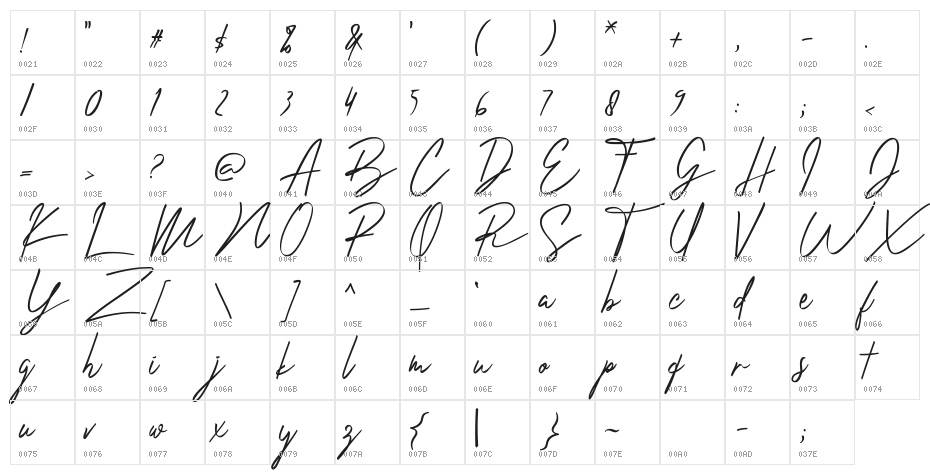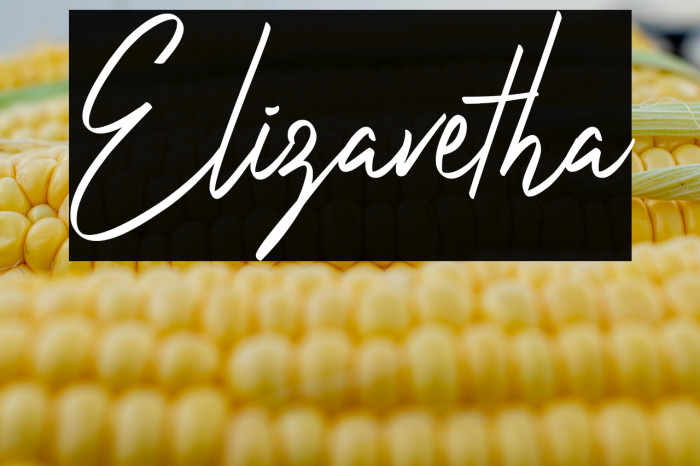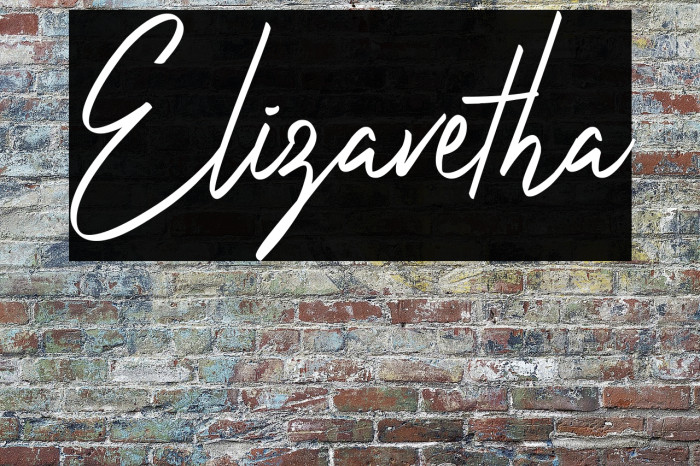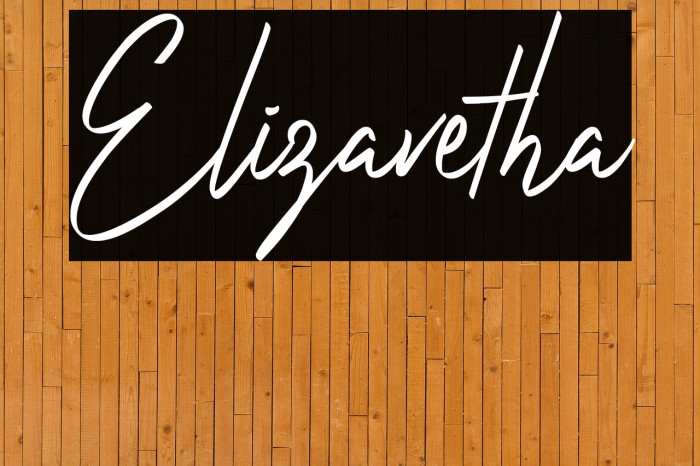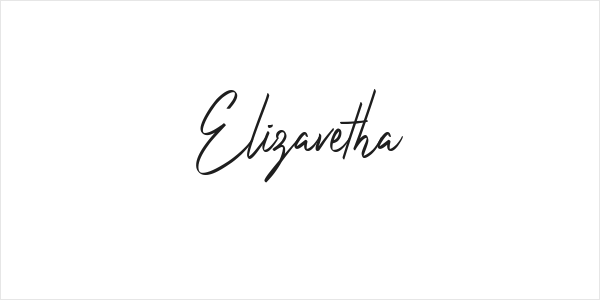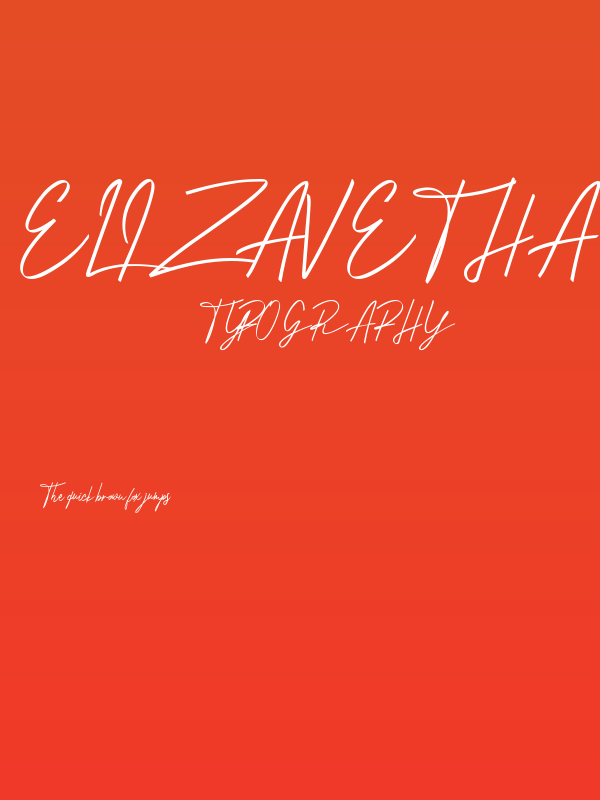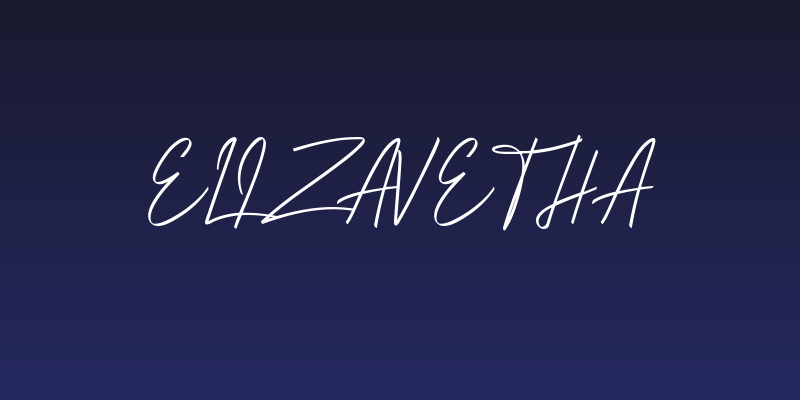
Elizavetha Font
Elizavetha Description
This font exudes a dynamic and expressive style, characterized by its fluid and cursive script. The letters are interconnected, creating a seamless flow that mimics natural handwriting. The uppercase letters maintain a consistent height, while the lowercase letters exhibit a playful variation in size and slant. The numerals and special characters are crafted with the same lively energy, ensuring a cohesive look across all elements. The strokes are predominantly thin, with occasional thicker lines that add a touch of boldness and emphasis. This font is perfect for projects that require a personal and artistic touch, such as invitations, greeting cards, or creative branding.
Overall StyleExpressive, Artistic
Use CaseLogos, Headlines, Creative projects
Proposed ProjectsIdeal for invitations, greeting cards, artistic branding, and personal projects.